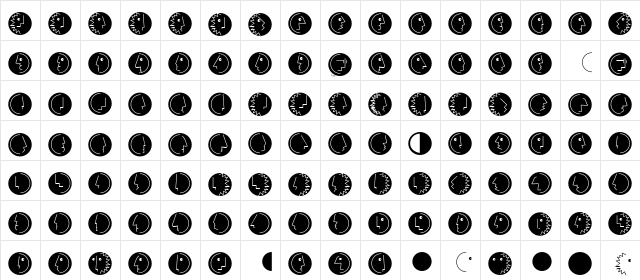
HeadsTorsiButtons Regular Font Preview
HeadsTorsiButtons Regular
Design Context for HeadsTorsiButtons Typeface
HeadsTorsiButtons is a composed and adaptable typeface that performs quietly and consistently across a wide range of design contexts.